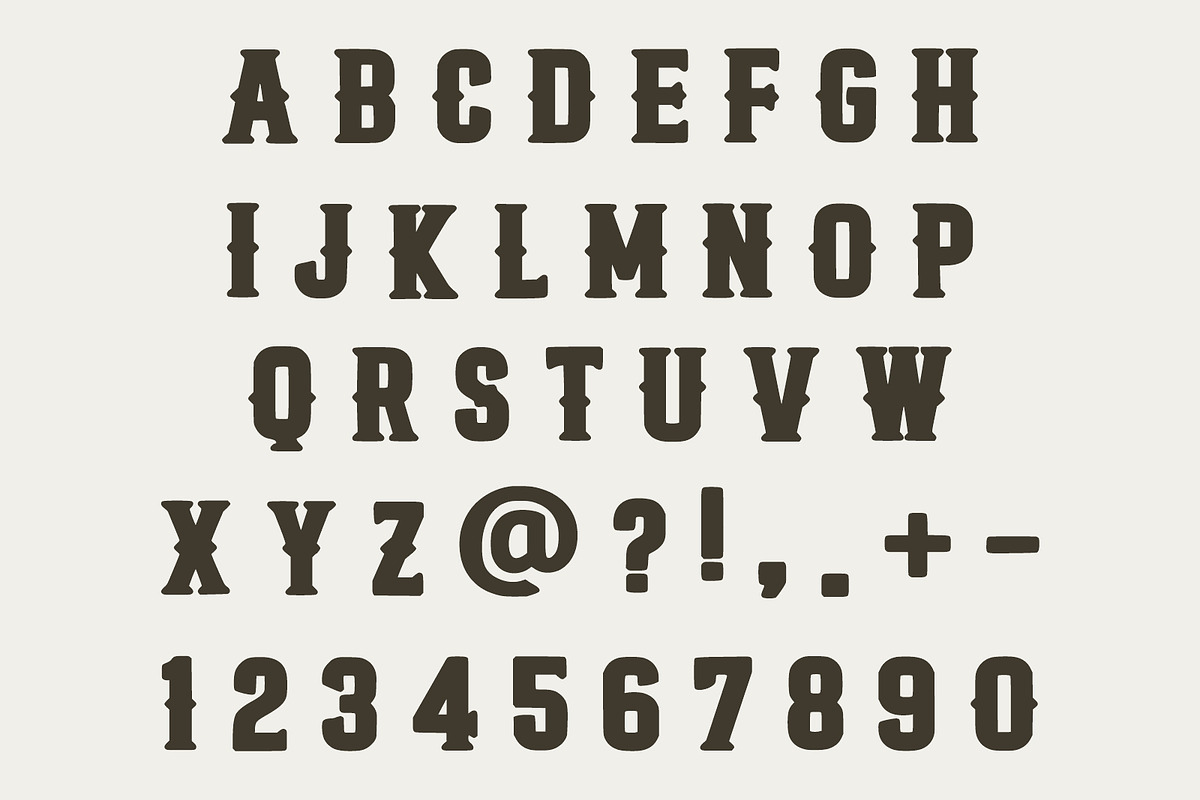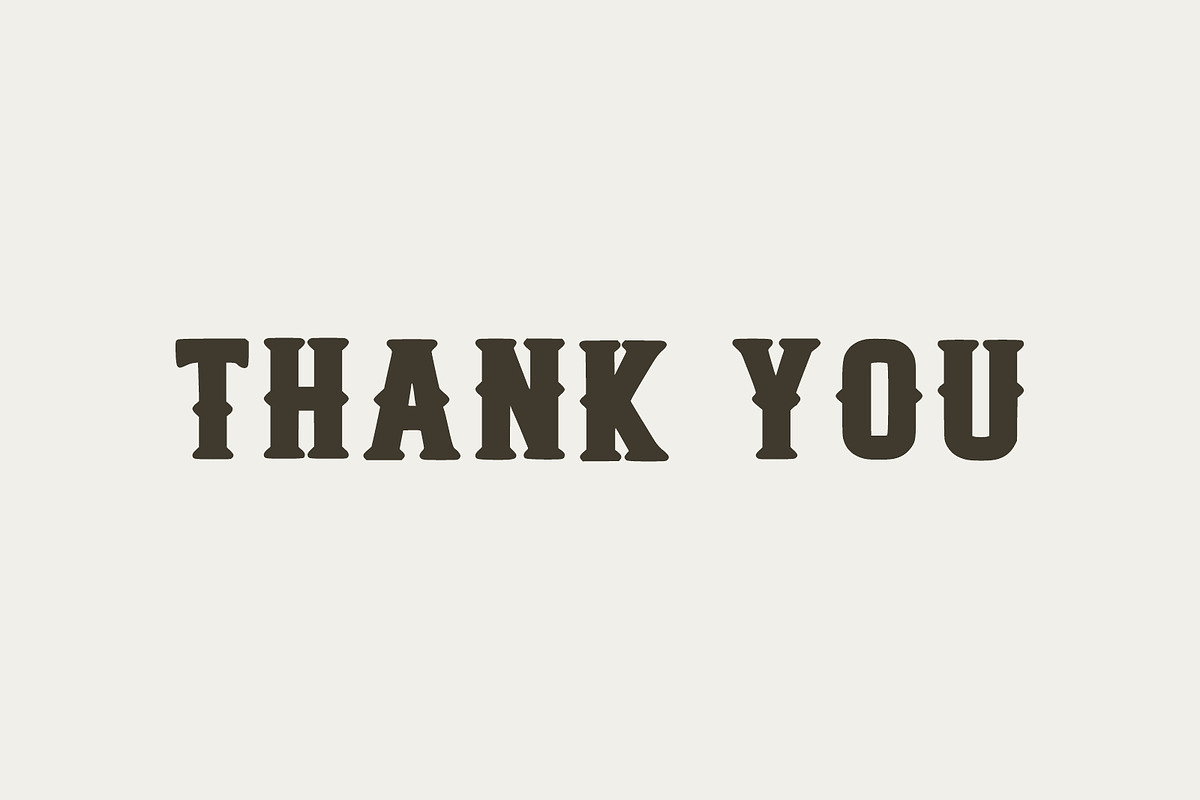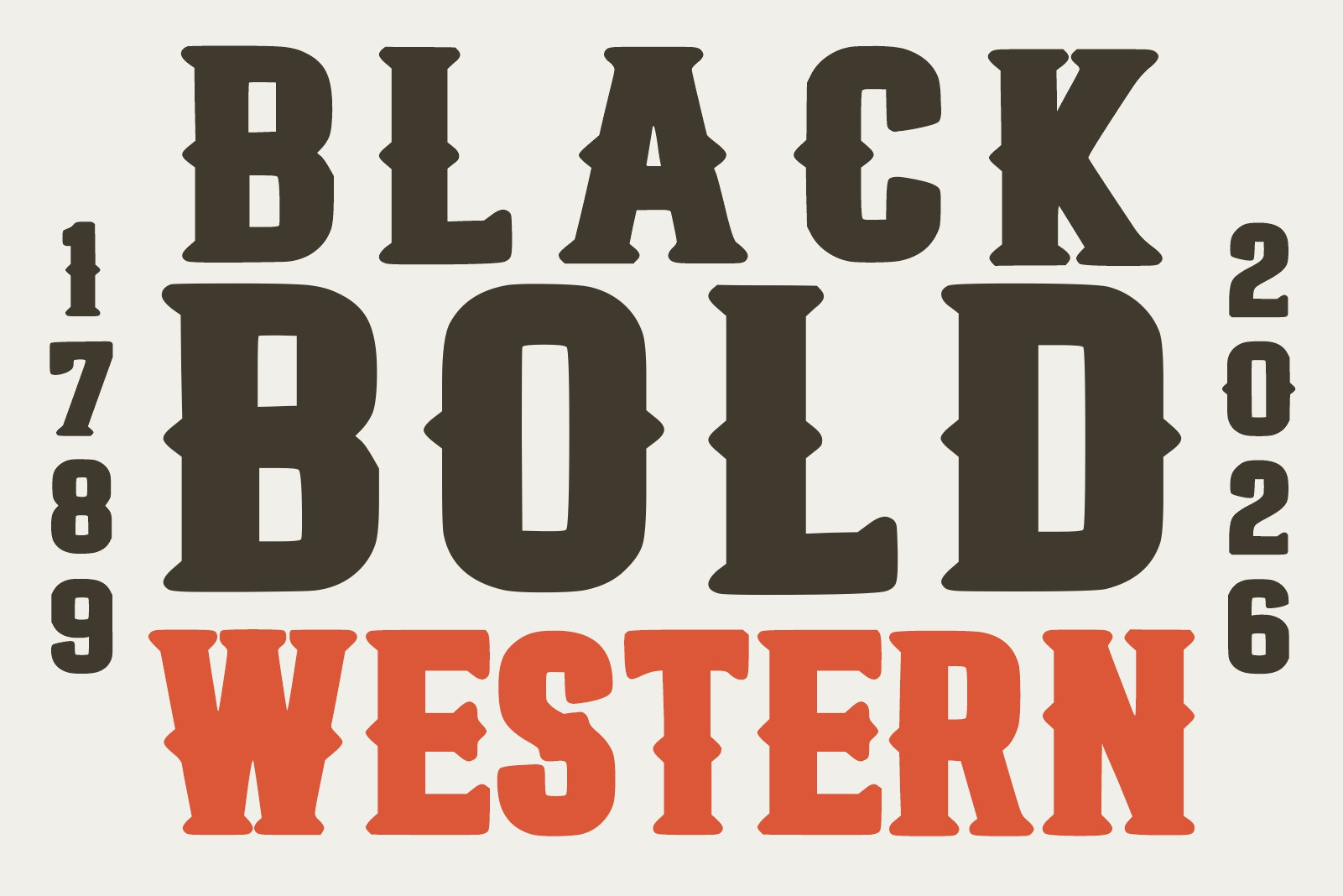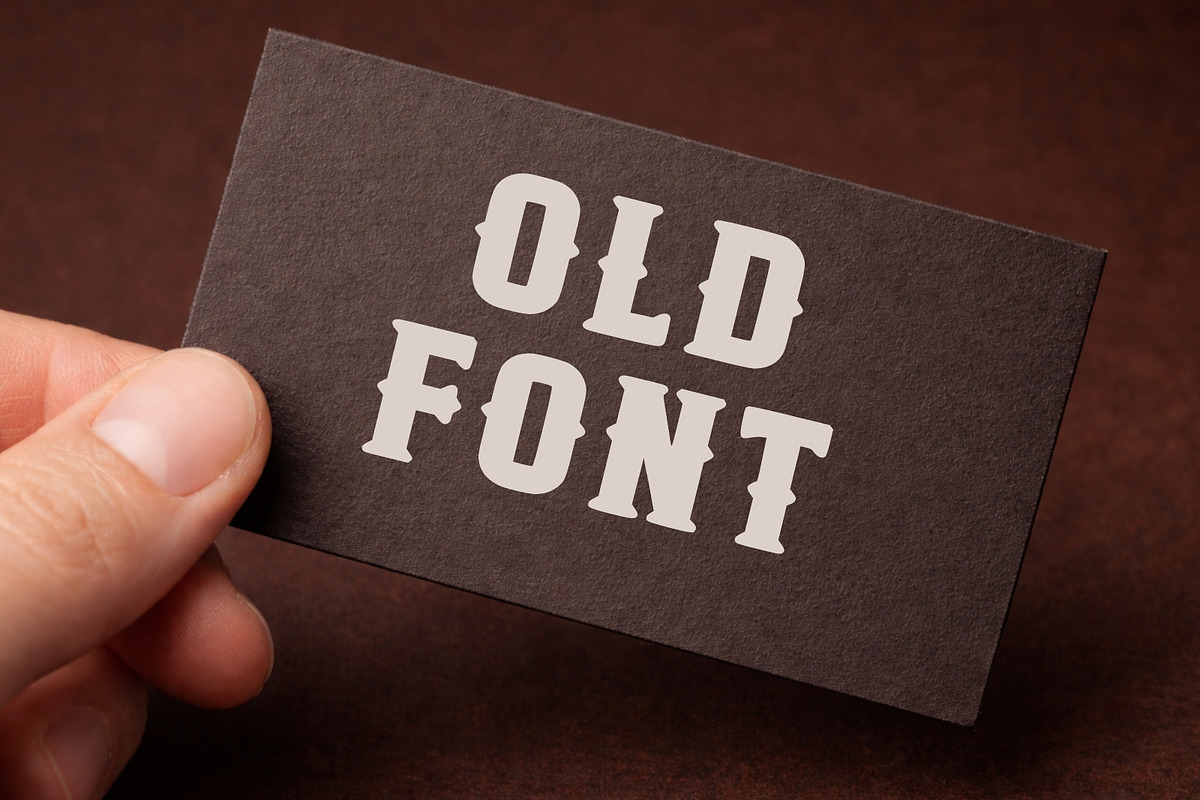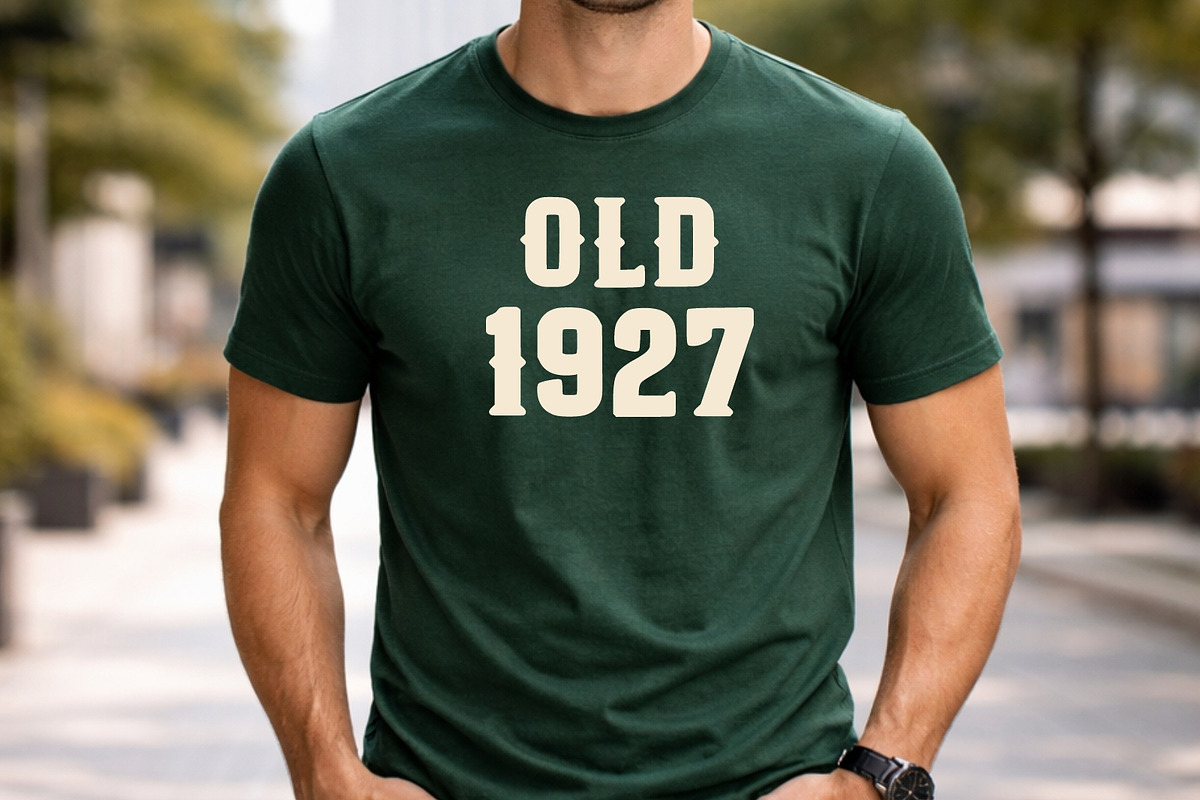
Black Bold Western Font
Black Bold Western Font is a strong vintage display typeface inspired by classic cowboy and old west typography. Featuring thick slab-style characters with bold shapes, this font captures the rugged spirit of western signage and retro posters. Perfect for logos, headlines, posters, apparel, branding, packaging, and vintage-themed designs. Its bold structure and classic western style make it ideal for creating eye-catching designs with an authentic cowboy and rustic feel.